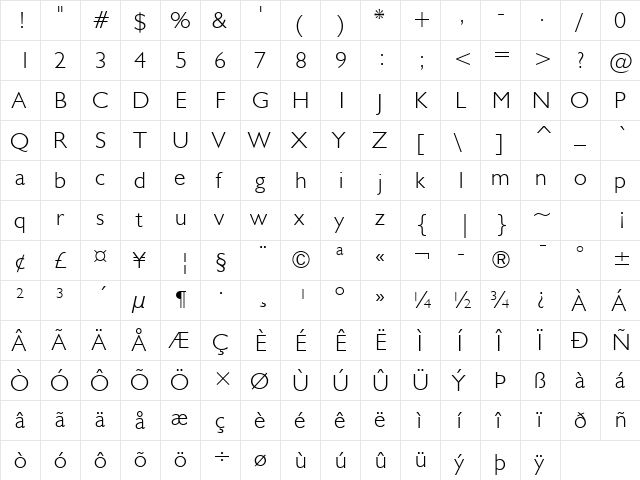
Humanst521 Lt BT Light Font Preview
Humanst521 Lt BT Light
Humanst521 Lt BT Light Font Details
Design Context for Humanst521 Lt BT Typeface
Humanst521 Lt BT offers clean, dependable letterforms without strong stylistic allegiance, making it a practical choice for designers who need flexibility. Its slender proportions lend an understated elegance to any composition.